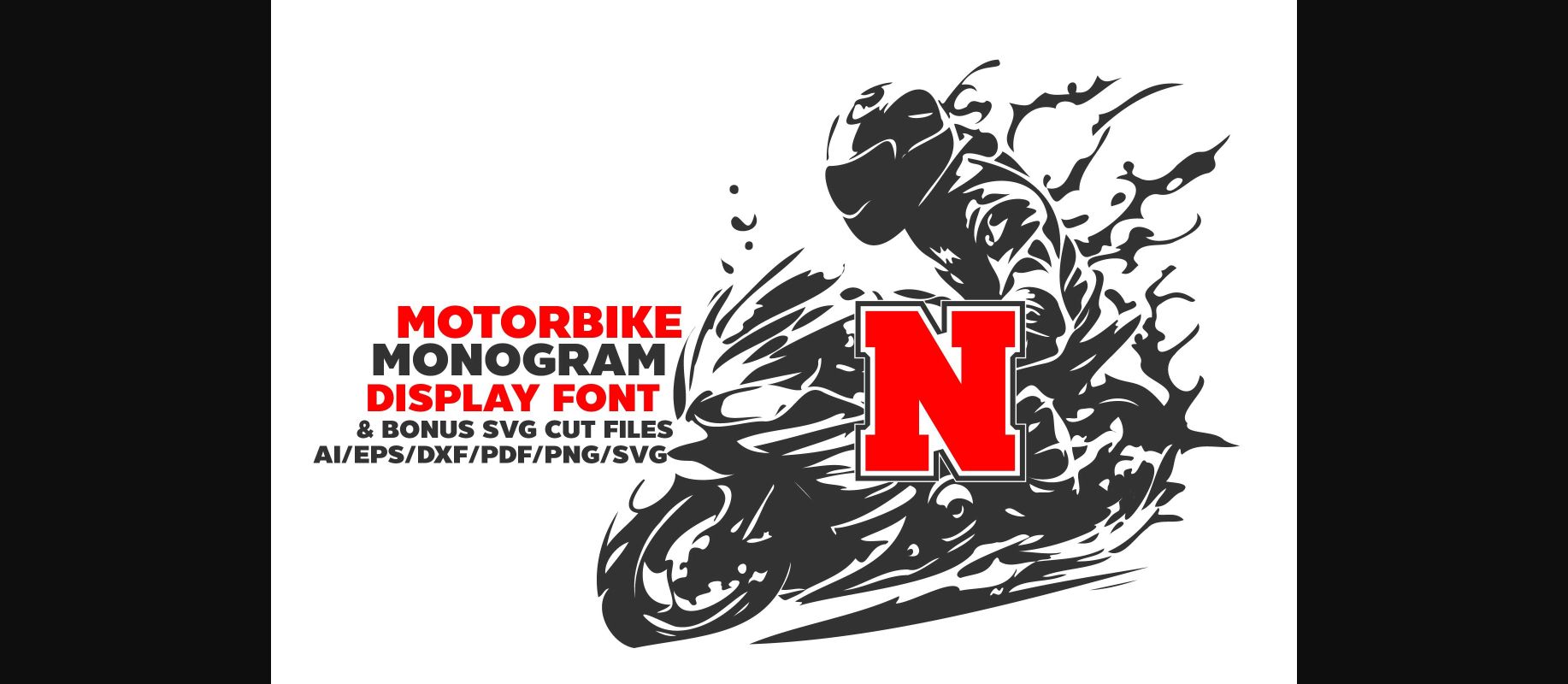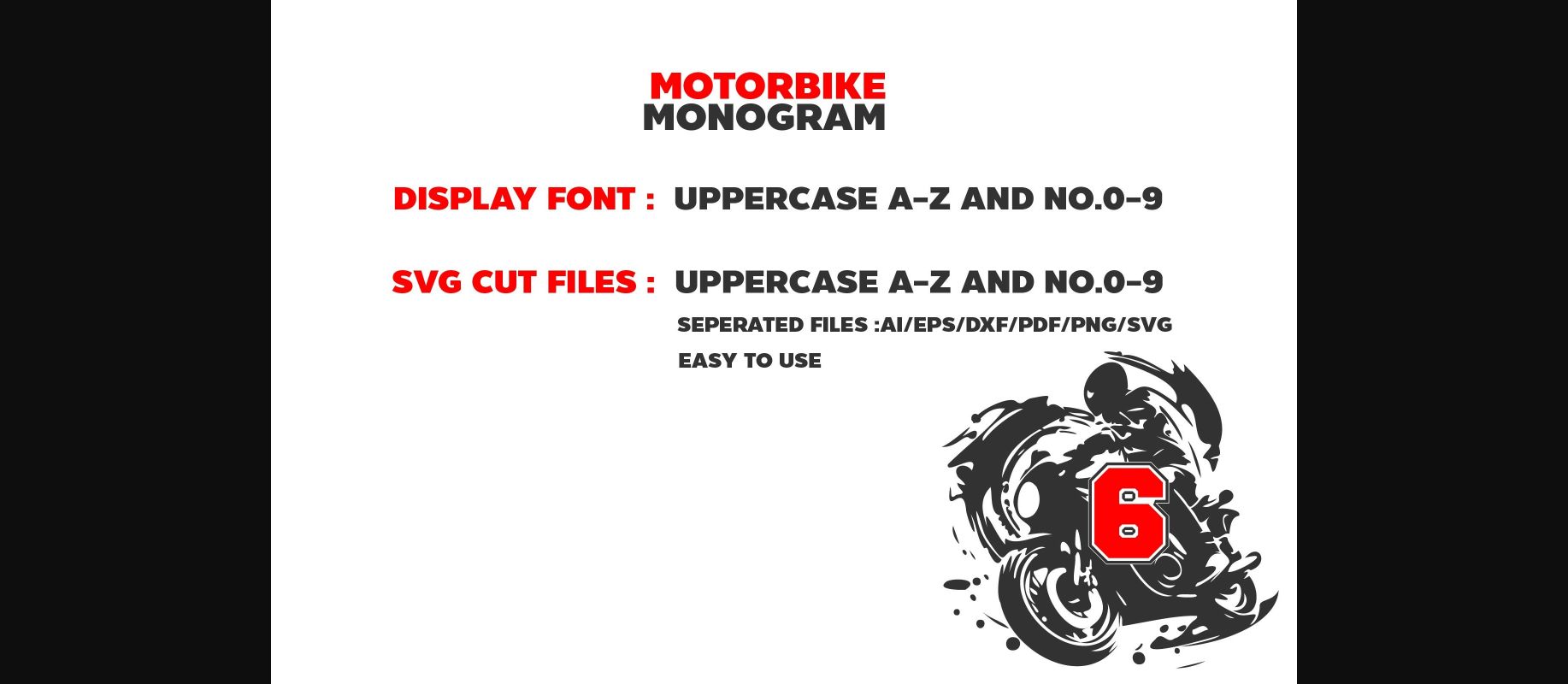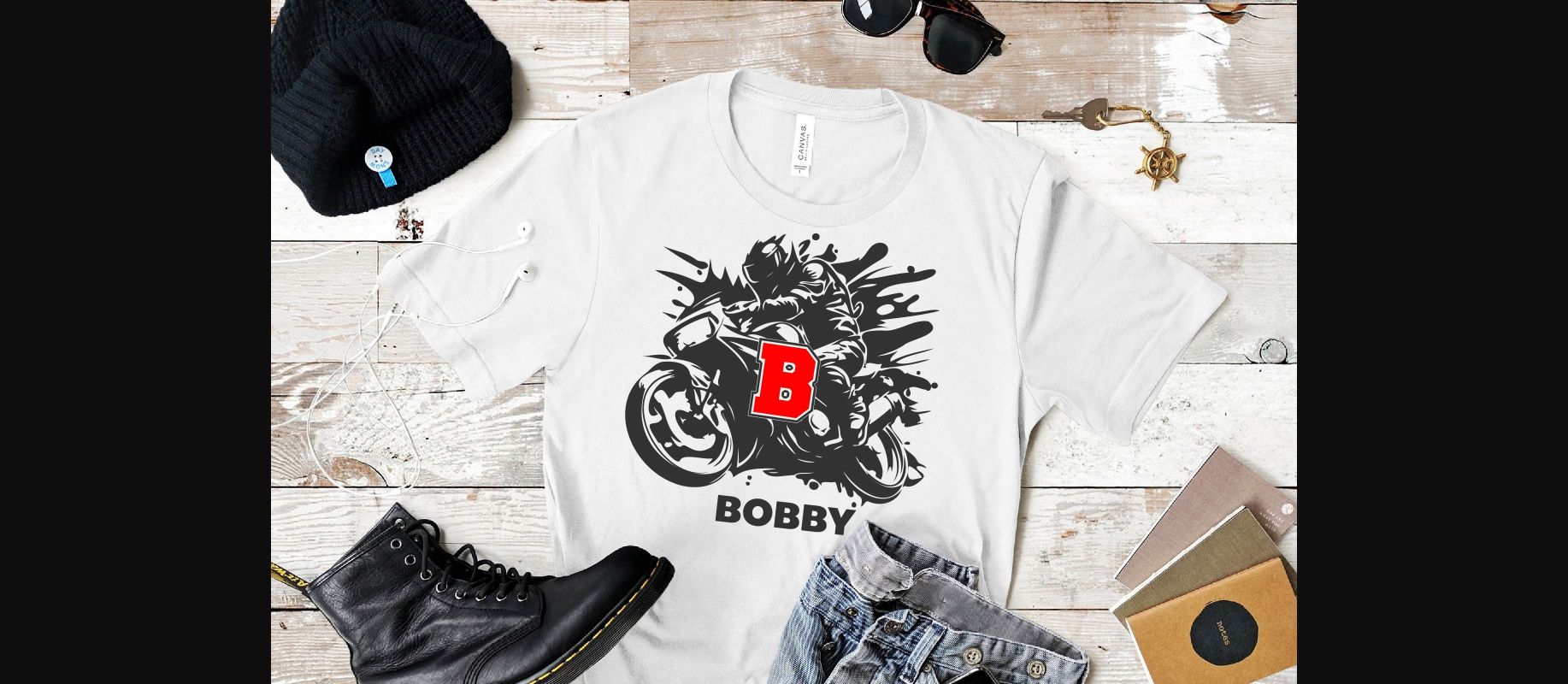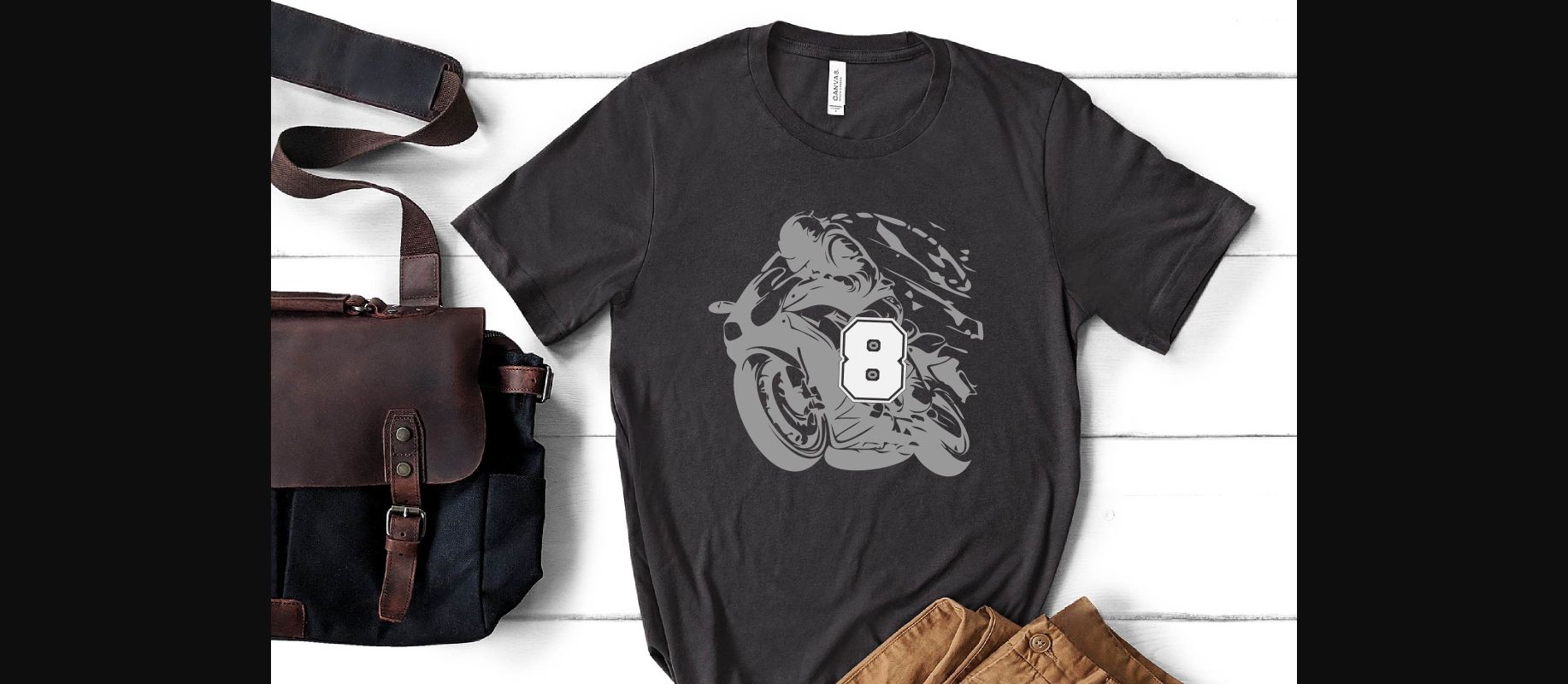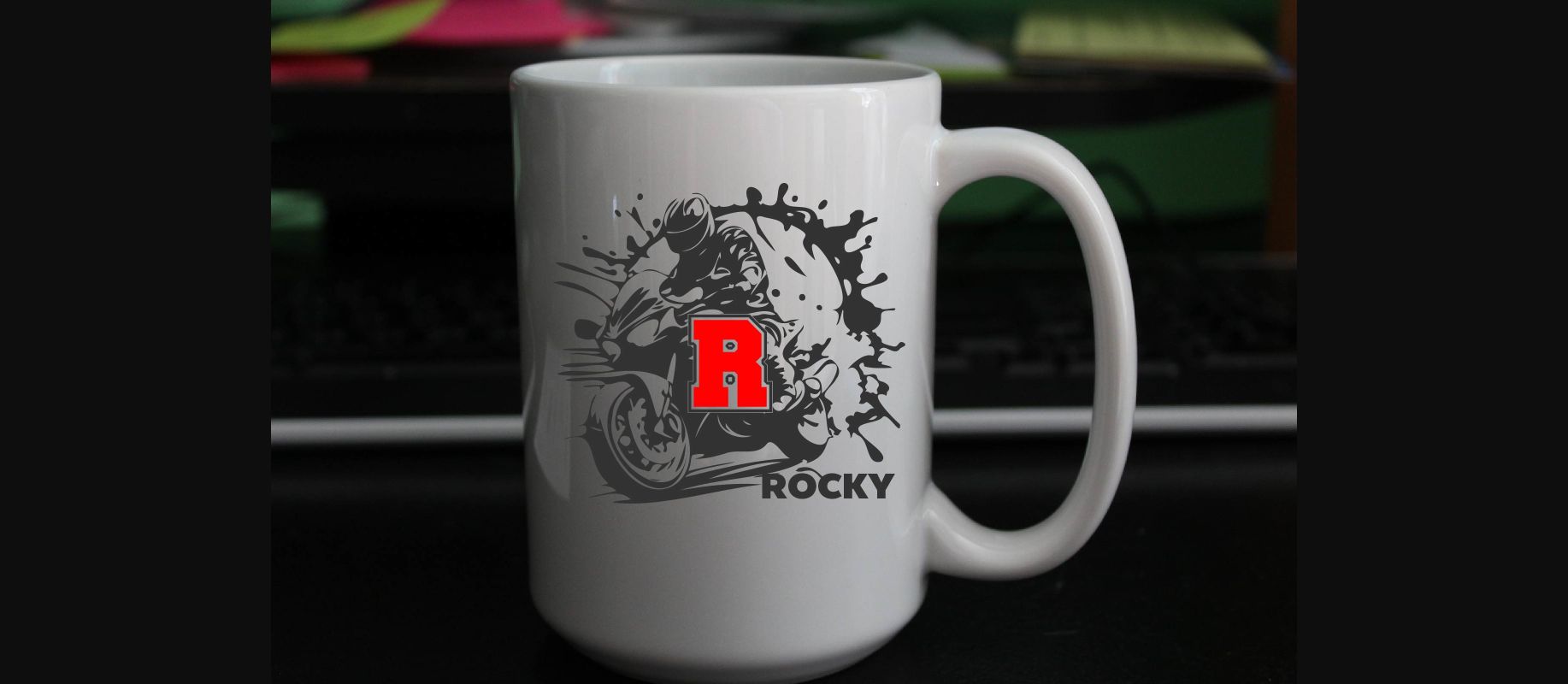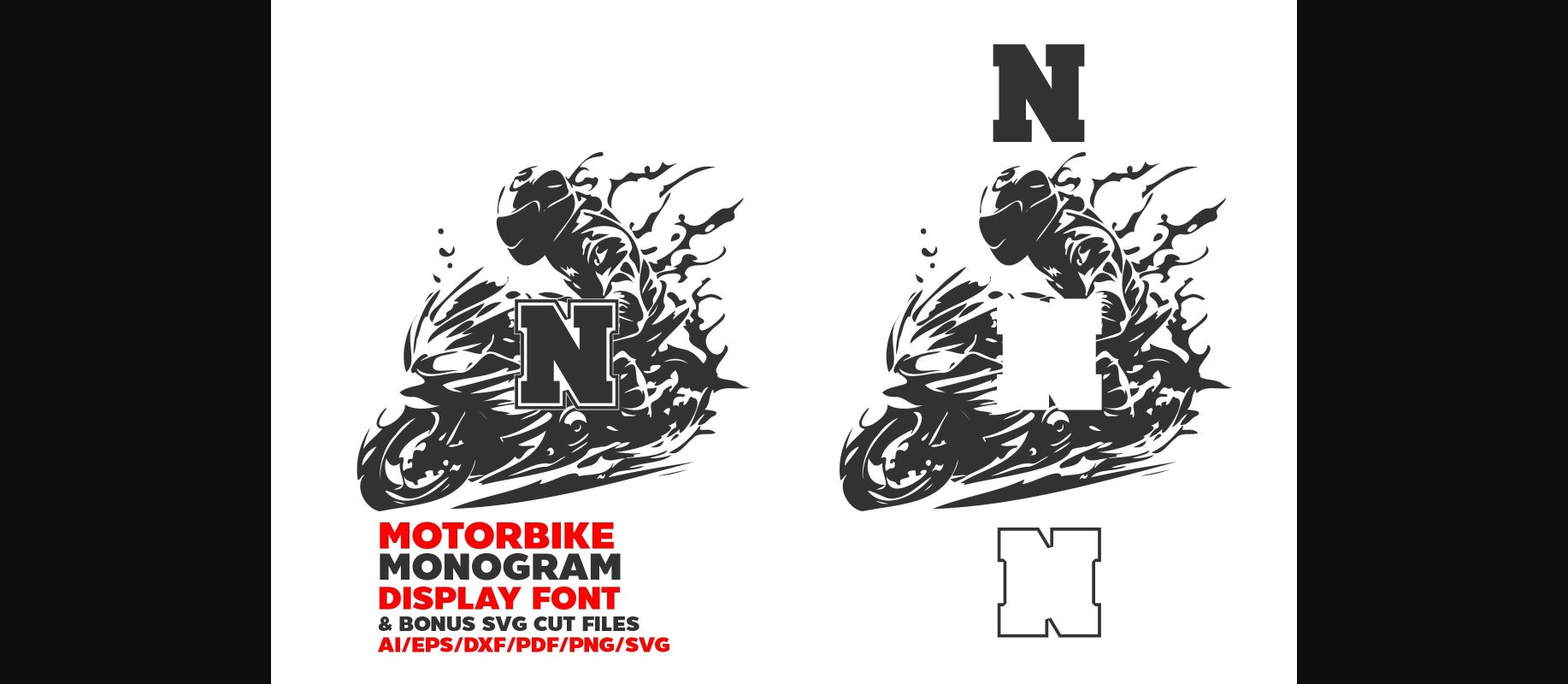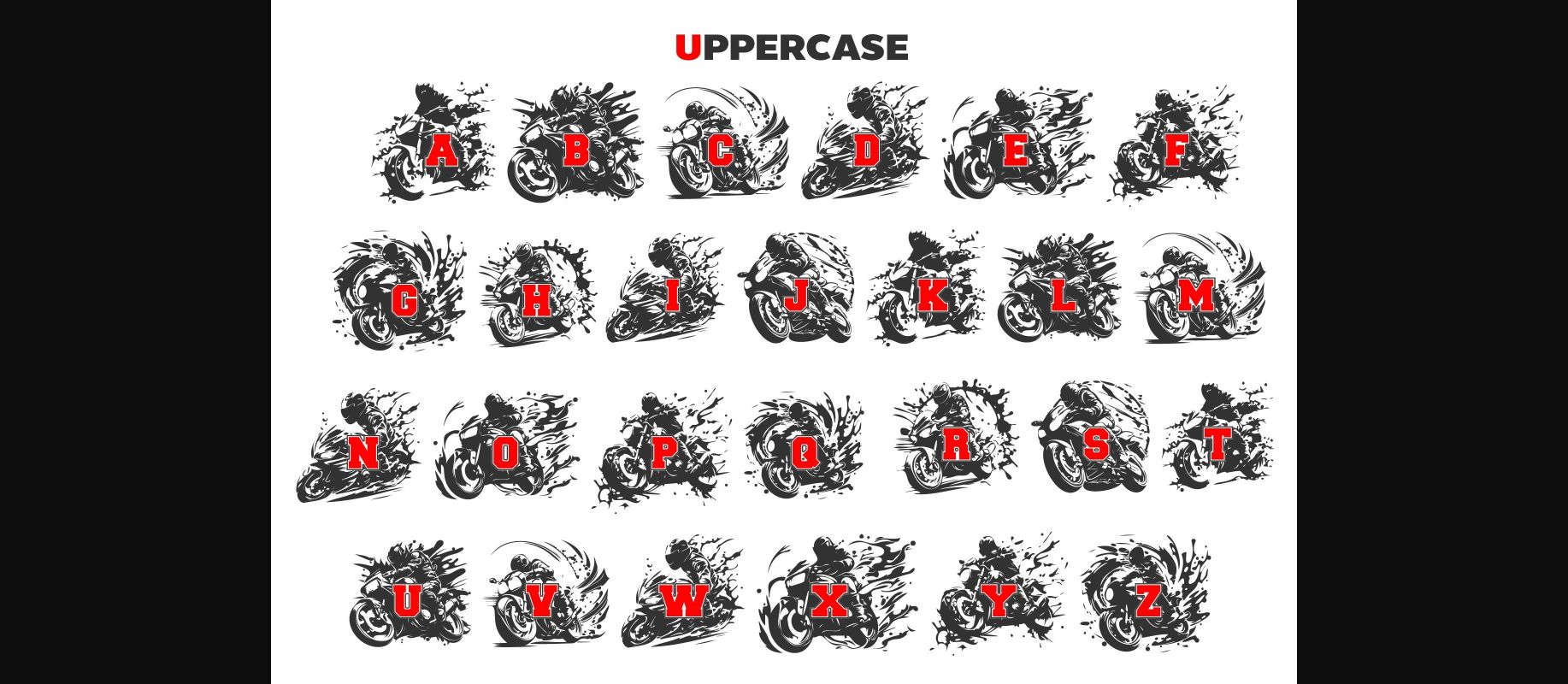
Motorbike Monogram Font
About Motorbike Monogram Font
Motorbike Monogram is a cool and fun decorative font. Cute and jolly, it will enhance the aspect of each of your designs. Add it to your creative projects, and notice how it makes them come alive!